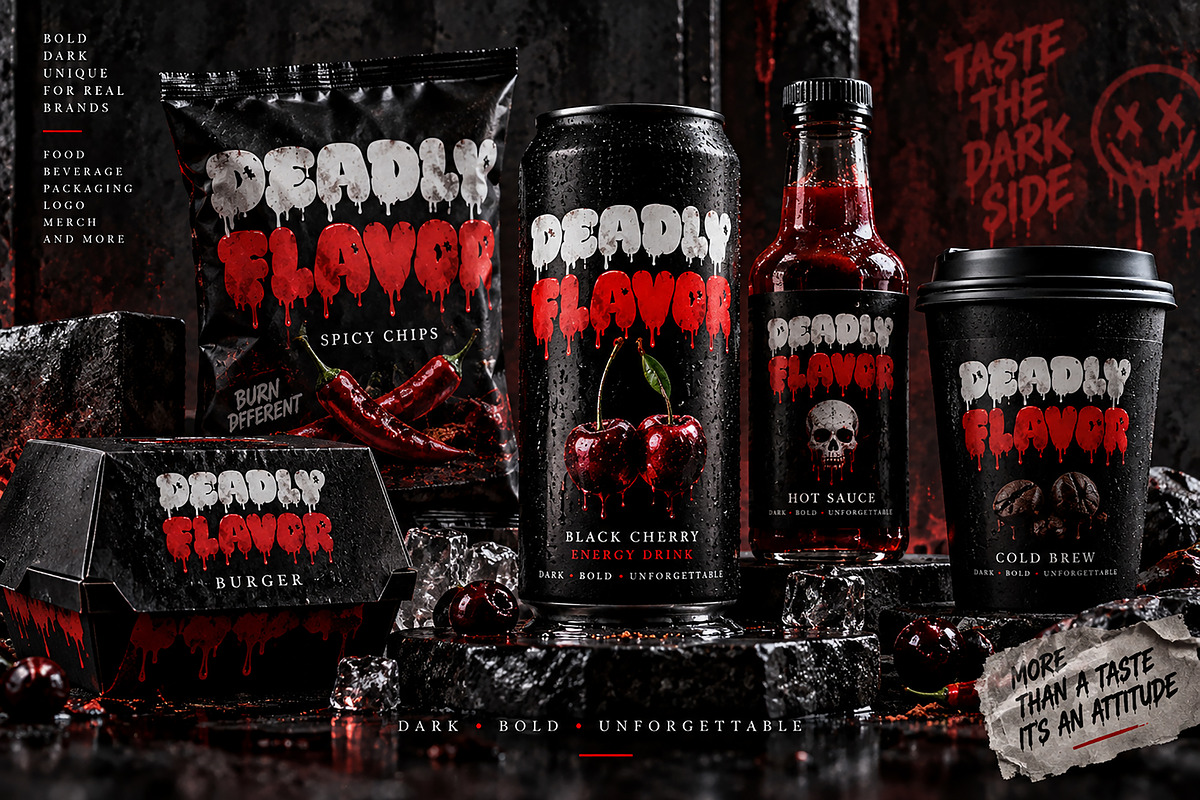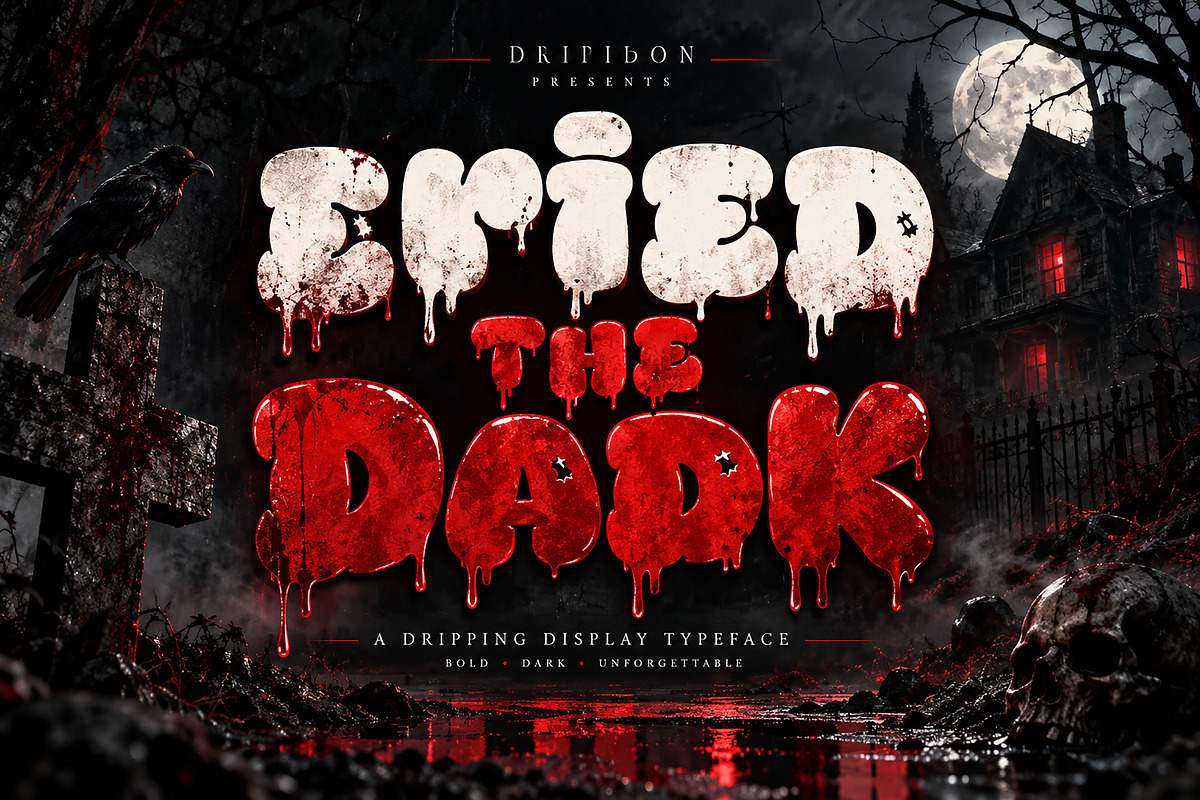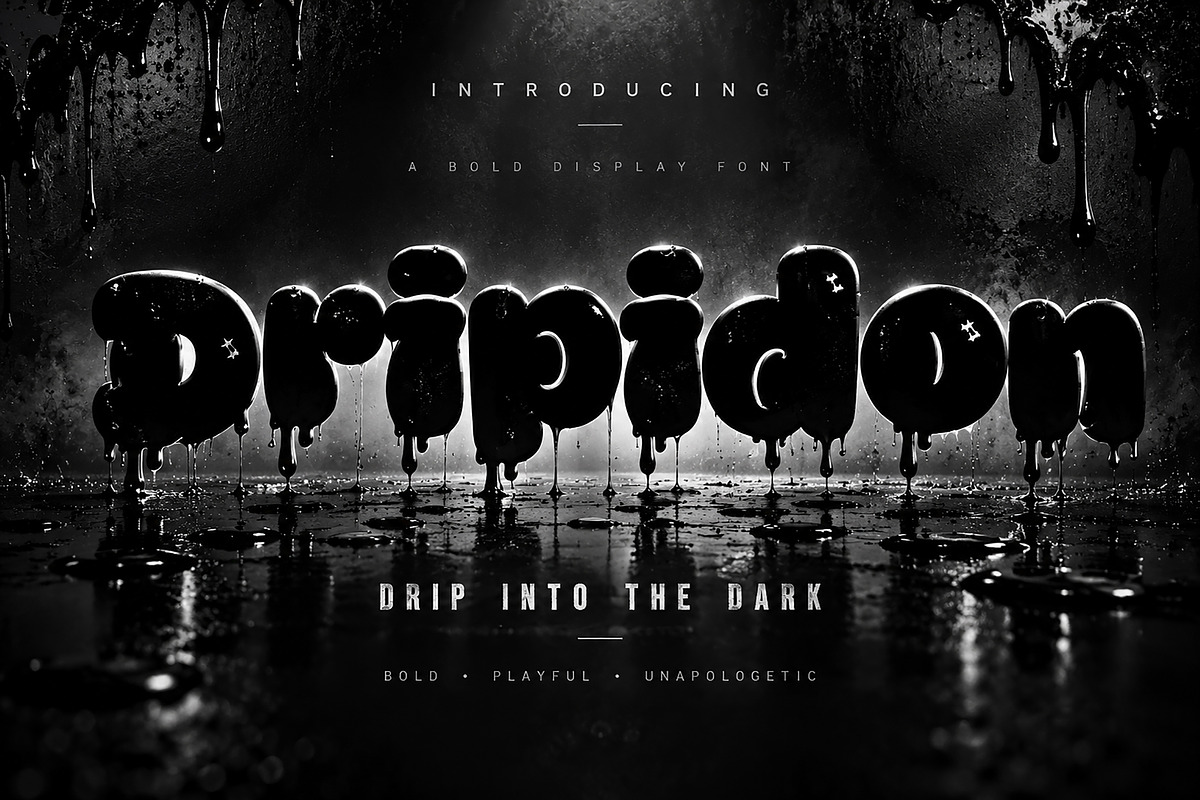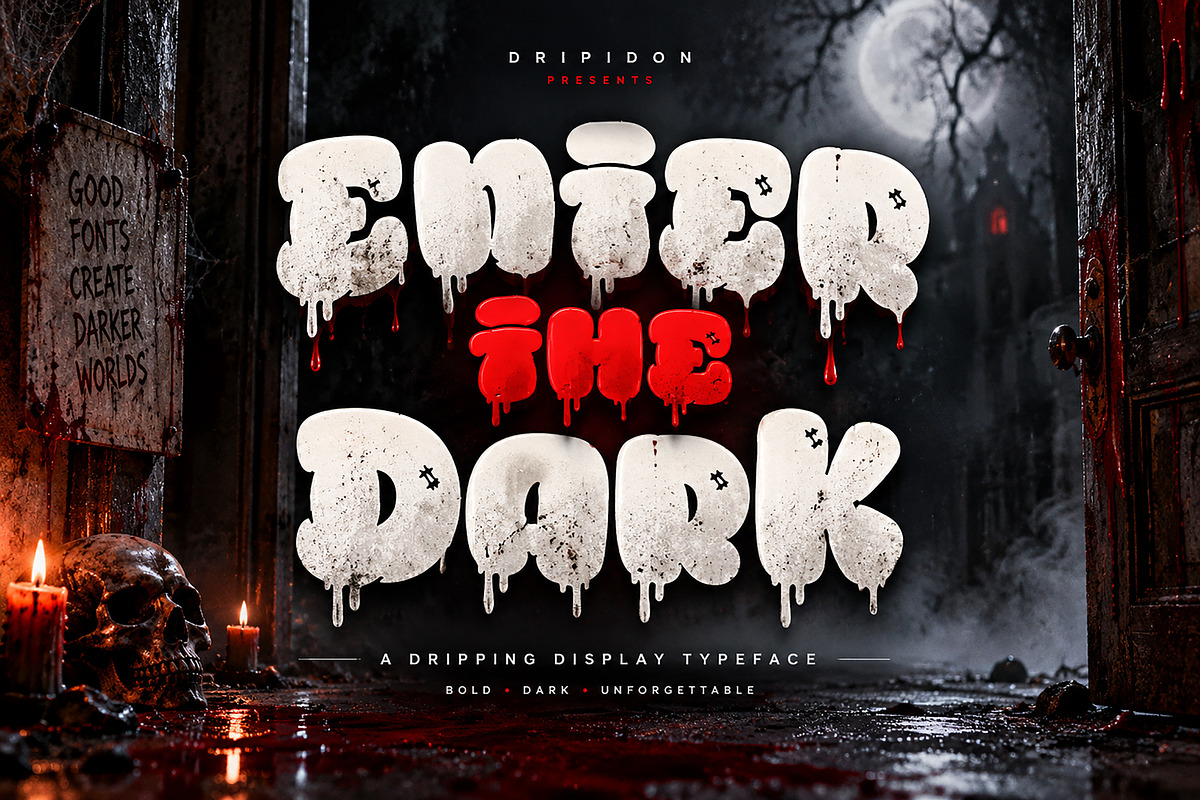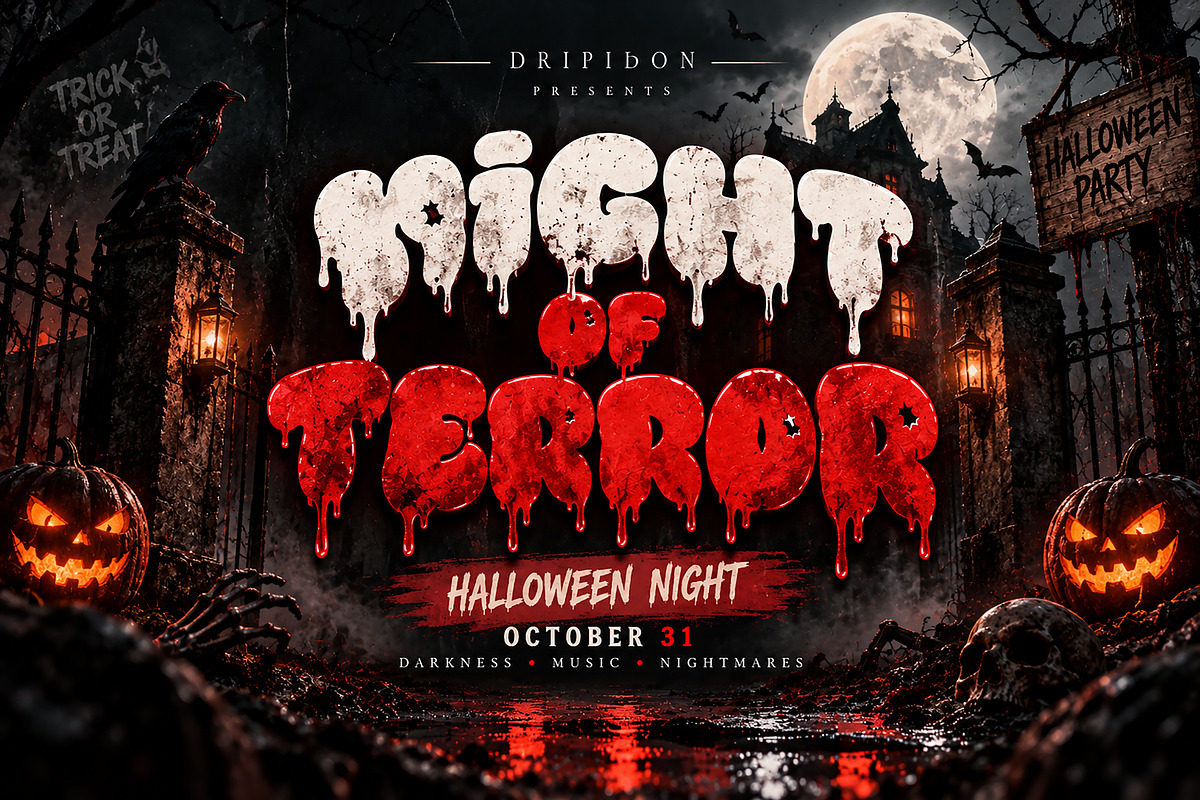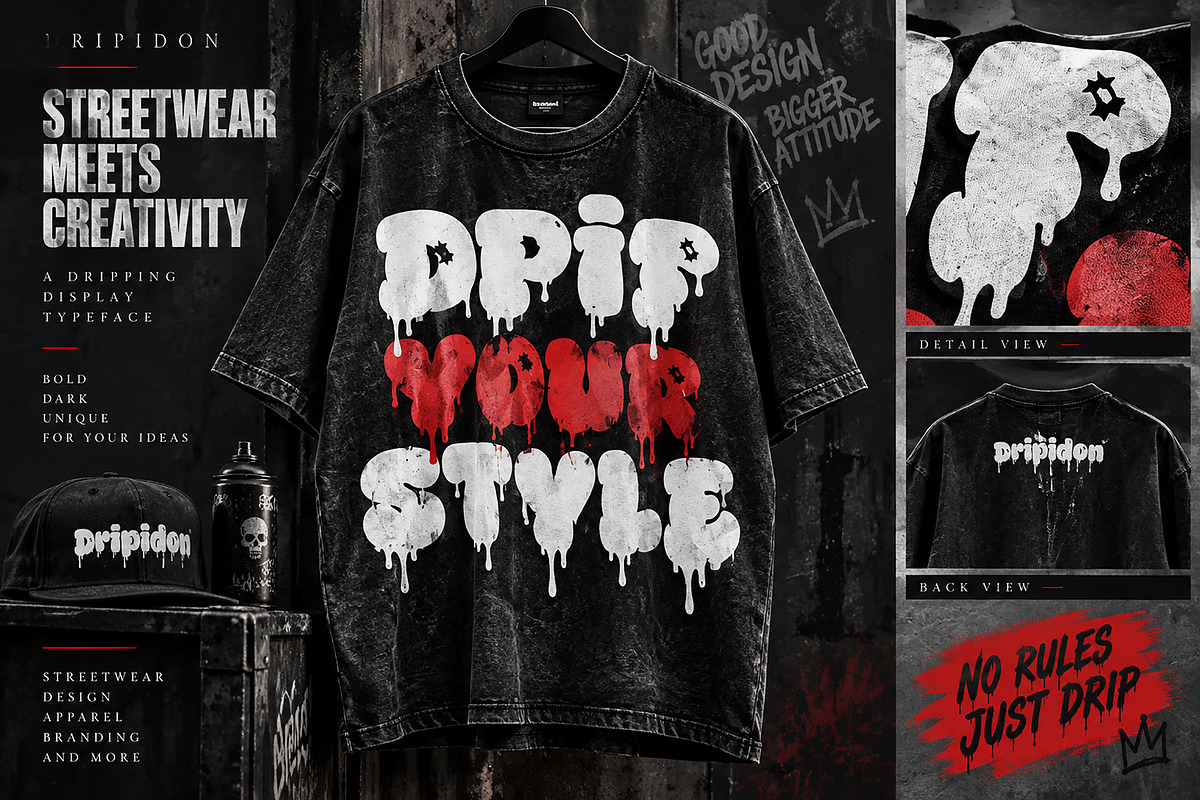
Dripidon
Dripidon is a bold and dripping display font designed to bring a dark, rebellious, and unforgettable personality to your creative projects. With its heavy rounded letterforms, dramatic dripping details, and edgy horror-inspired character, Dripidon is perfect for designs that need to stand out.
This attention-grabbing typeface works especially well for horror posters, Halloween designs, streetwear graphics, T-shirt designs, album artwork, event posters, packaging, labels, stickers, logos, social media graphics, and merchandise branding.
Whether you're creating a creepy Halloween campaign, a bold apparel collection, or a dark product identity, Dripidon gives your typography an instantly recognizable dripping aesthetic.
Horror & Halloween Designs
T-Shirt & Apparel Graphics
Streetwear Branding
Movie & Event Posters
Album & Music Artwork
Food & Beverage Packaging
Labels & Stickers
Logo & Brand Identity
Merchandise Designs
Posters & Promotional Artwork
Dark & Edgy Creative Projects
Style: Bold / Dripping / Horror / Streetwear Display Font
Give your next project a bold, dark, dripping attitude with Dripidon.